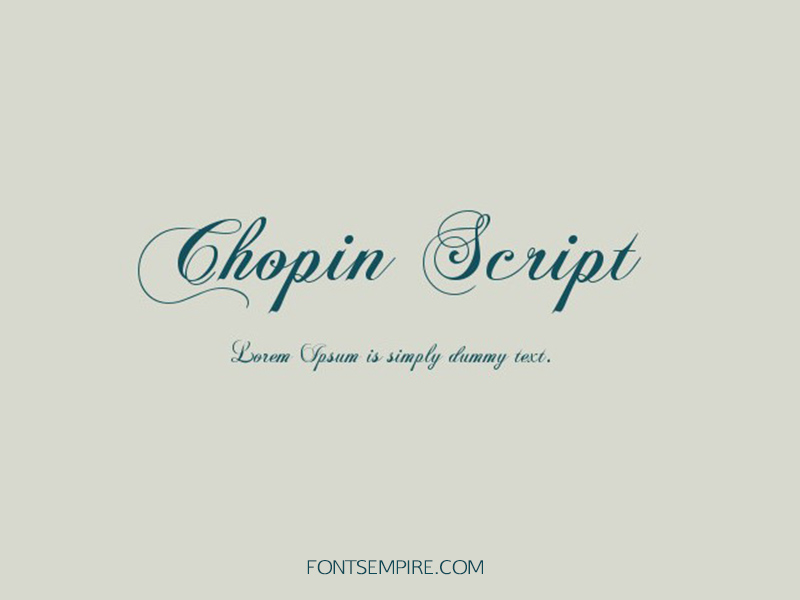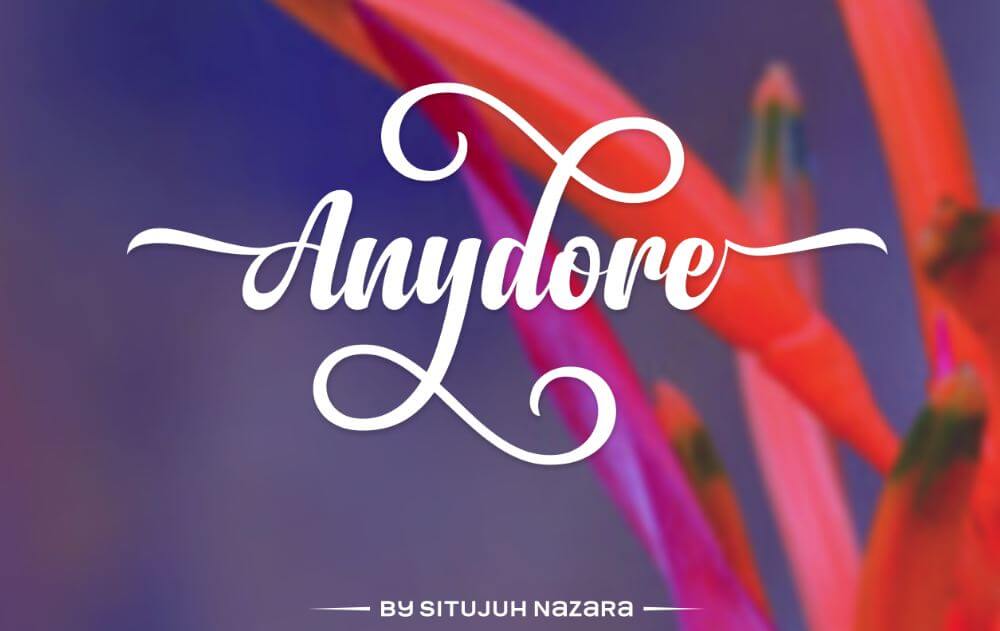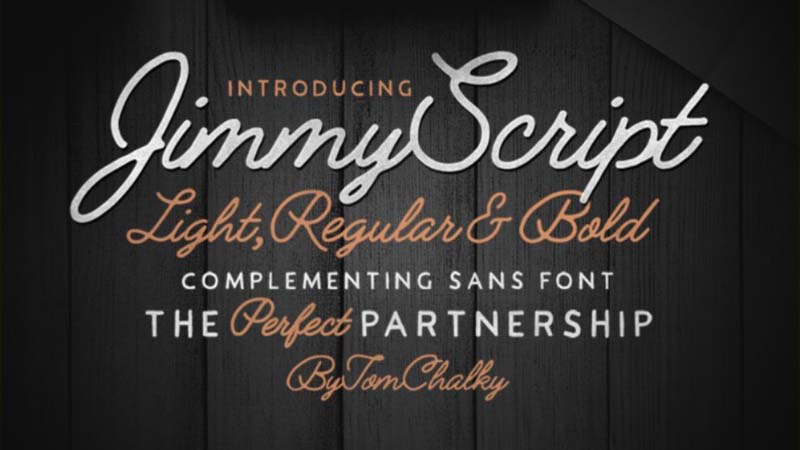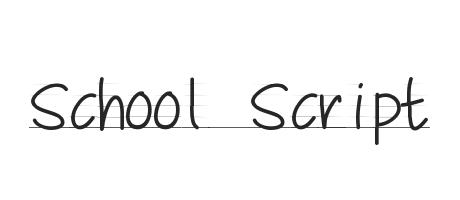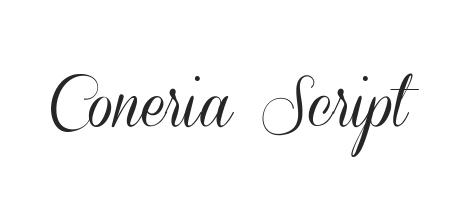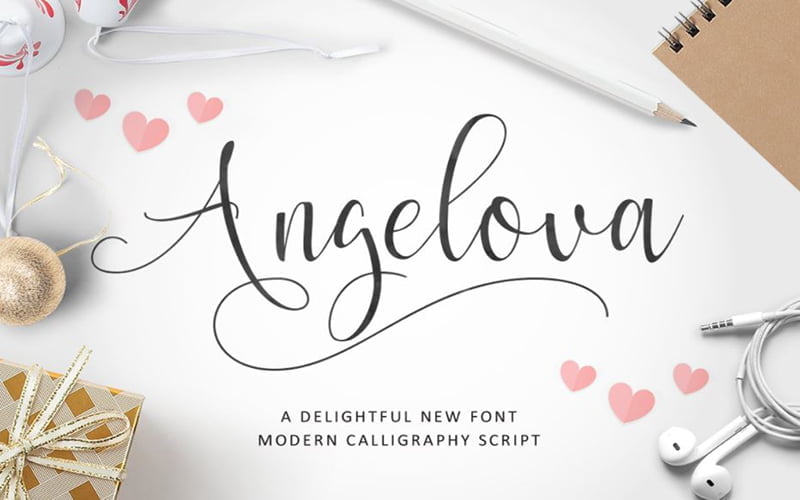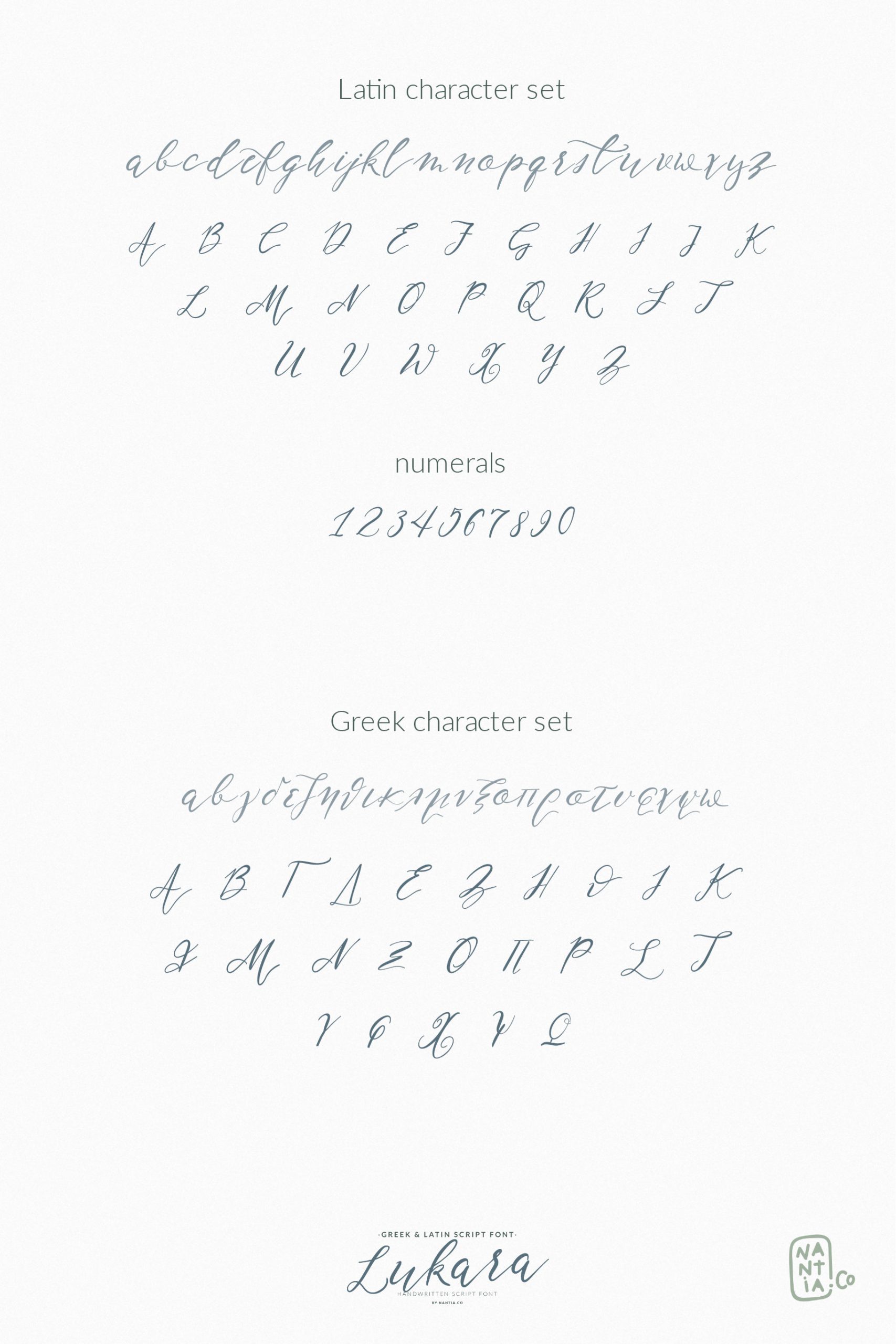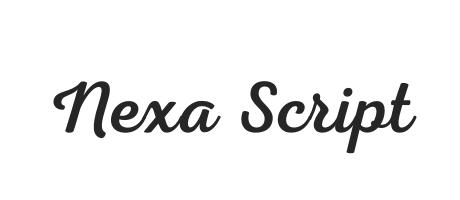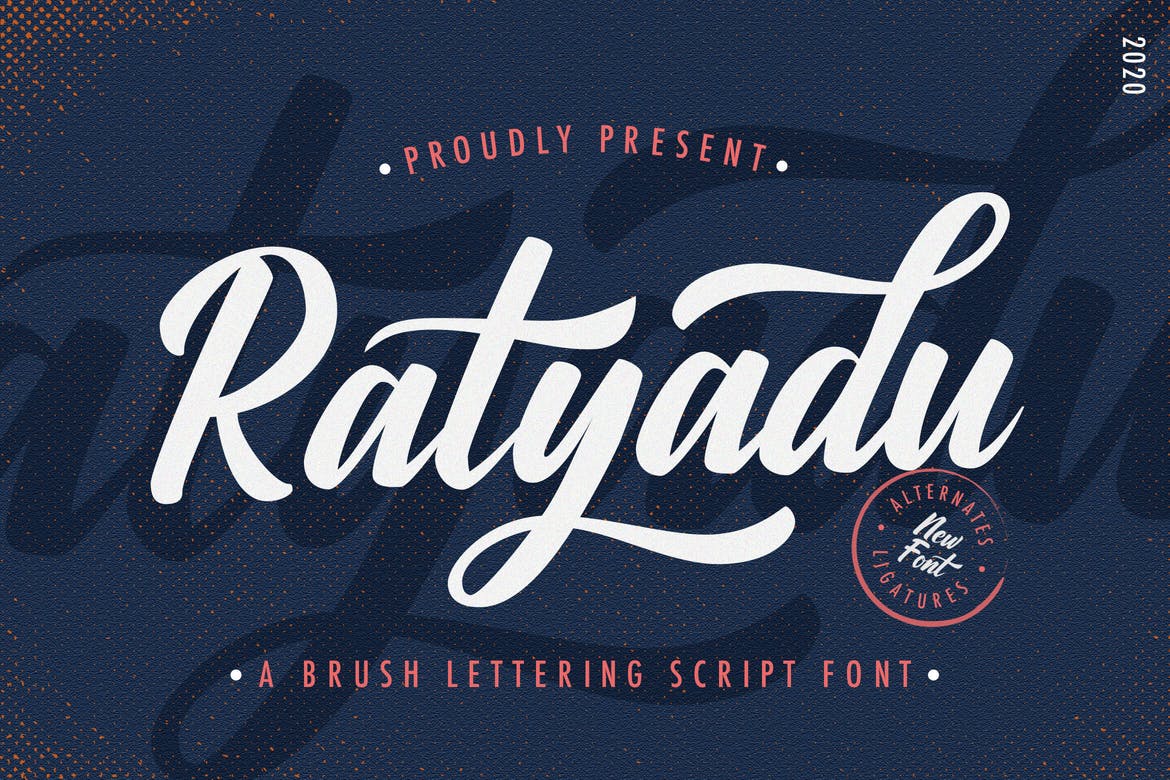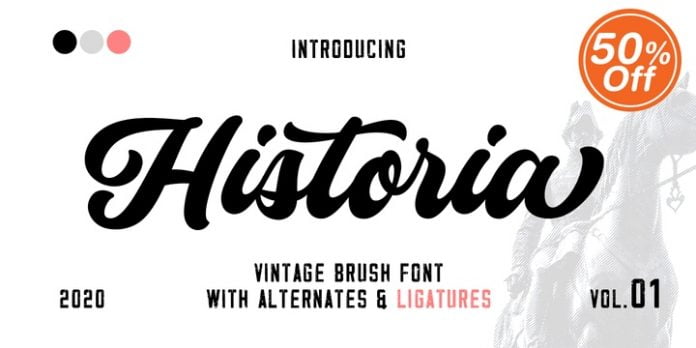
We hope you found these best script fonts cool enough to use in your projects. The full commercial version includes a huge set of 70 alternates contextual ligatures and underlining.
Script fonts free download 2020. Free script fonts are perfect for branding packaging and any design projects. I am happy to present you a modern handwritten font. New fonts added daily.
Fonts Created in 2020. March 15 2020 by Dafont Leave a Comment Julietta is a cool script font made from the lettering work of Stéphane Lopes. This is a collection of handpicked handwriting script fonts from Google Fonts.
1001 Free Fonts offers the best selection of Script Fonts for Windows and Macintosh. Blueberry Script is a bold and characteristic script typeface. A very unique style of calligraphy that is very.
So this was the collection of nearly 100 free fonts. They are classic scripts calligraphic some with vintage charm even perfect for elegant projects like weddings feminine blogs monograms signatures or social media images. We have hand picked these fonts for various purposes each featuring a unique style and you can download script font for print visual media graphics designers web designers photographer blogger.
See also. So whether youre looking for a serif script or sans-serif font todays collection of the best free fonts for designers has you covered. The font is designed and created by Noah Kinard and MÃns.
100 Best Free Handwriting Fonts For Designers in 2020. For a more modern look check out the Modern script fonts from Google Fonts collection. It supports hundred of Latin languages and has several ligatures to maximize the letters flow.
Blueberry Script contains 1 style. It is made using hand by having the character up and down like a dancer. Were amazed at the number and quality of free fonts available today.
It comes with upper and lowercase characters plus numbers punctuation and symbols and is available as a free download from Creative Tacos. You can use these fonts on personal and commercial based projects. Script typefaces are based upon the varied and often fluid stroke created by handwriting pretty much like the cursive fonts just typically more elegant.
Valentina Beautiful Script Font Free Download. See the timeline overview for more years and a history of free fonts. Mianty is a sweet script font that features an elegant and flowing handwritten calligraphy style with a varying baseline smooth lines and stunning alternates.
They are organized into highly regular formal types similar to cursive writing and looser more casual scripts. Free Script Fonts Script Brush Script Cursive Calligraphy. Download Saturday Script Font Download Free - Better saturday free for personal use please visit his store for more other products and buying fonts support him.
These fonts were all created in 2020. Download Free Script Fonts. They can also be searched for as tattoo fonts script modern script fonts wedding script fonts elegant script fonts pretty script fonts etc.
In this post you can find 150 free best script fonts available on the internet. Blueberry Script was designed by MÃns GrebÃck Noah Kinard and published by Mans Greback. Mianty- Free Sweet Script Font.